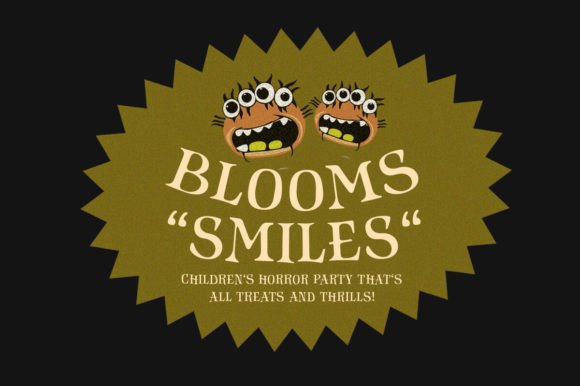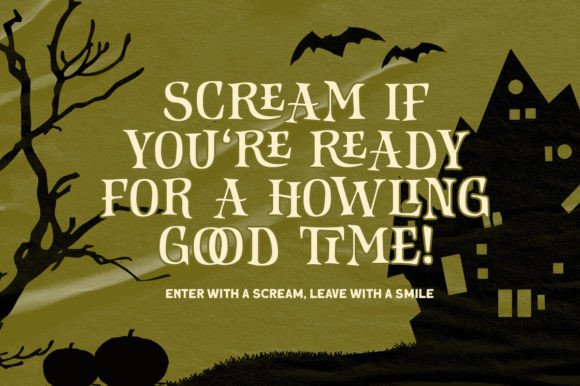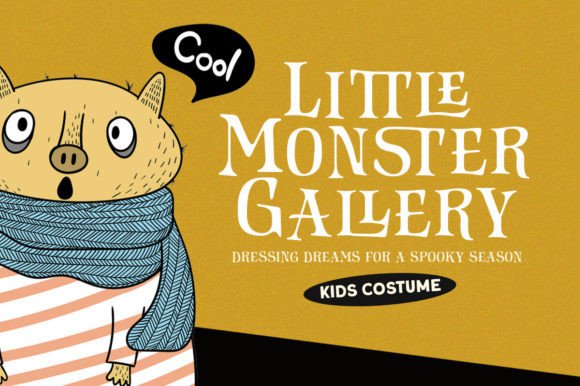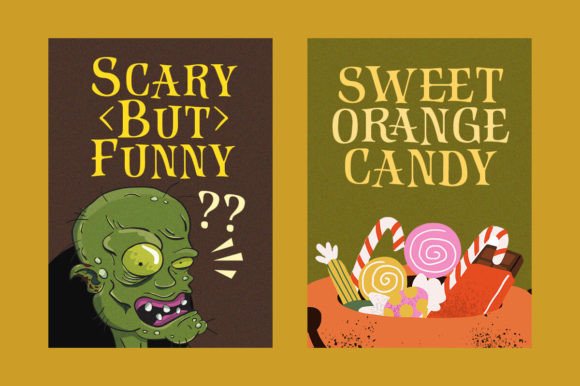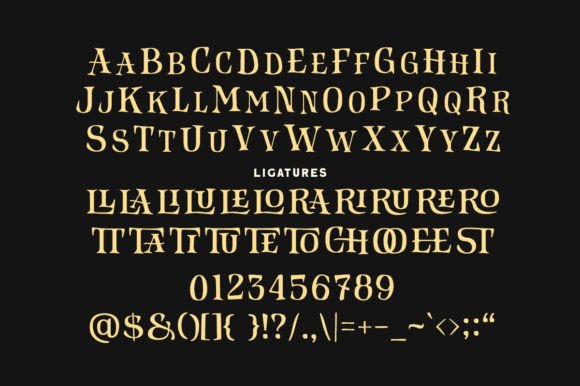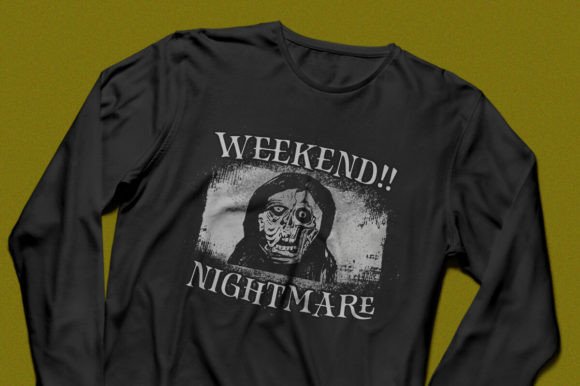
Introduction to Haunted Gallery Font
Have you ever been working on a creative project, pouring your heart and soul into it, only to be stuck on the perfect font to give it that extra oomph? I know I have. The search for the perfect font can be a daunting task, especially when you’re looking for something that screams ‘spooky’ or ‘mysterious’. Well, put down your search bar, because I’ve got just the thing for you – the Haunted Gallery Font.
This high-quality, free download font is a design resource like no other. With its classic letterform and transparent background, it’s perfect for adding a touch of eeriness to your next creative project. Whether you’re designing invitations, labels, logos, or even novels, the Haunted Gallery Font is a valuable addition to your design toolkit.
Key Features of Haunted Gallery Font
- Unique, eerie font design ideal for creative projects requiring a spooky atmosphere.
- High-quality design resource featuring intricate details and textures, perfect for adding depth to your designs.
- Perfect for designers working on Halloween-themed projects, horror movies, or any other creative project requiring a haunted atmosphere.
Honest Review: Haunted Gallery Font
I recently came across the Haunted Gallery Font and was intrigued by its eerie and mysterious vibe. As a designer, I appreciate high-quality fonts that can elevate my creative projects. This font definitely fits the bill.
What works well: ✨ The Haunted Gallery Font has a unique, gothic aesthetic that’s perfect for projects with a spooky or supernatural theme. It’s also great for designers looking for a font with a lot of character. The font’s weight and line variations provide a lot of flexibility for use in various design contexts.
- High-quality design with intricate details
Limitations: ⚠️ The Haunted Gallery Font may not be suitable for projects that require a more subtle or minimalist approach. The font’s bold lines and dramatic flair can be overwhelming if not used carefully.
Overall, I’m impressed with the Haunted Gallery Font. It’s a great design resource for designers looking to add some edge to their creative projects. Just be sure to use it thoughtfully to avoid overwhelming your audience.
The Haunted Gallery Font is a high-quality design resource ideal for creative projects. This versatile font offers a unique aesthetic and can be downloaded for free. Its transparent background makes it easy to incorporate into various design elements.
To get the most out of the Haunted Gallery Font, experiment with different font sizes, colors, and combinations to create unique and eye-catching designs. This font is perfect for creative projects that require a touch of sophistication and elegance.
The Haunted Gallery Font is ideal for various creative projects, including:
Spooky-themed graphics and posters
Artistic and creative illustrations